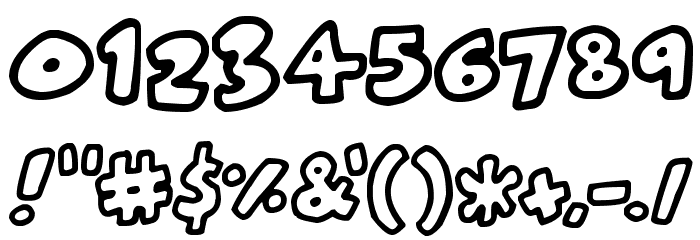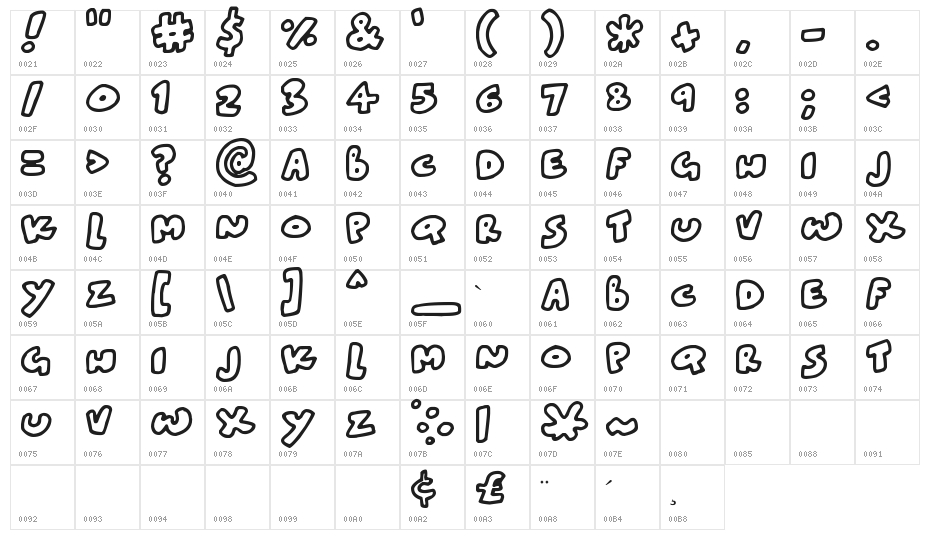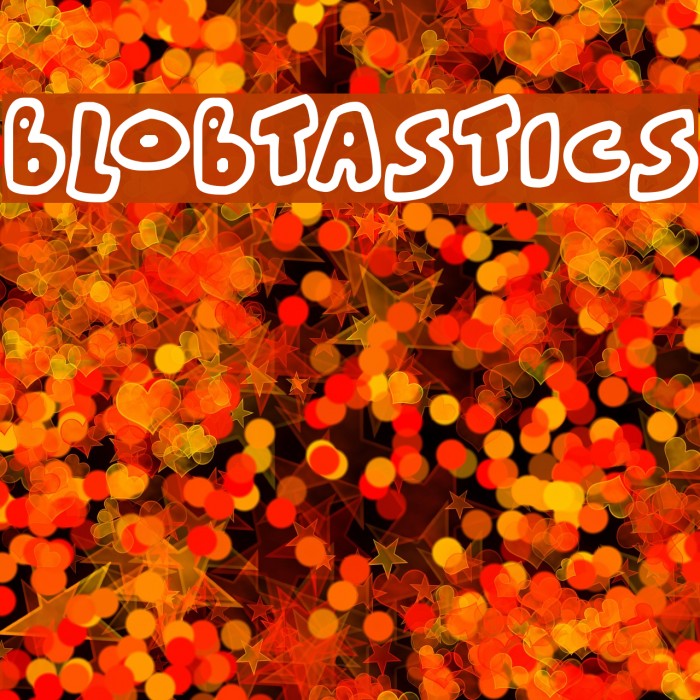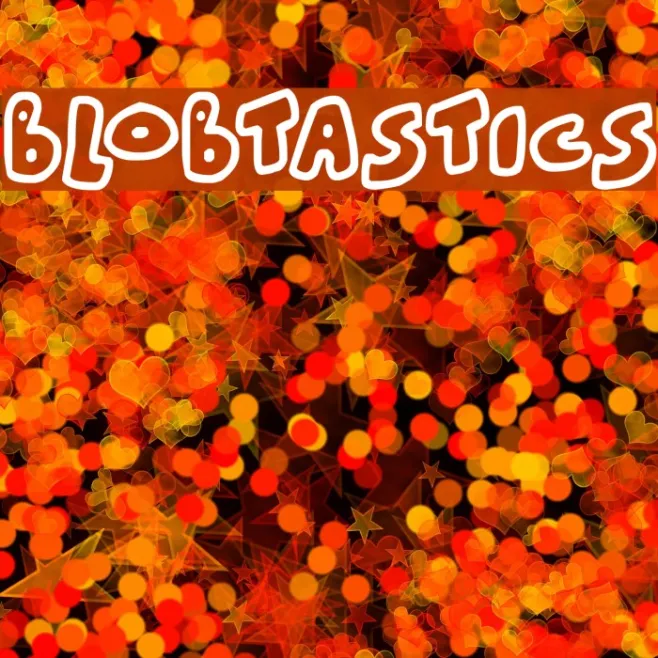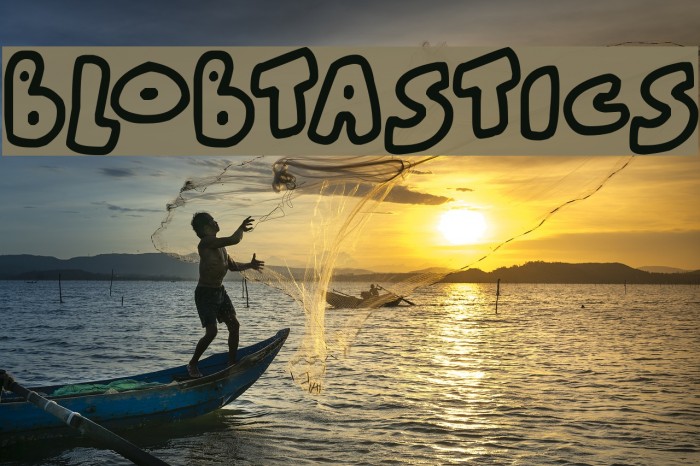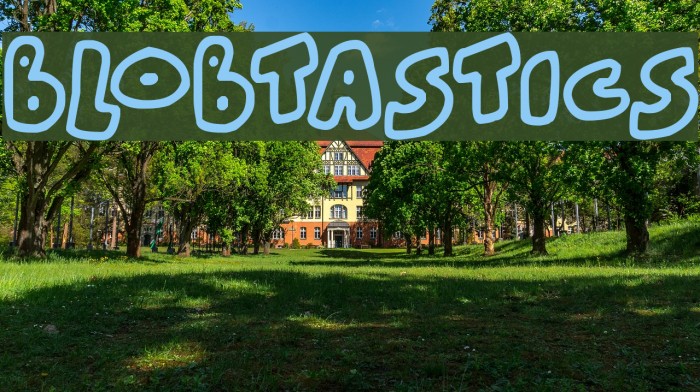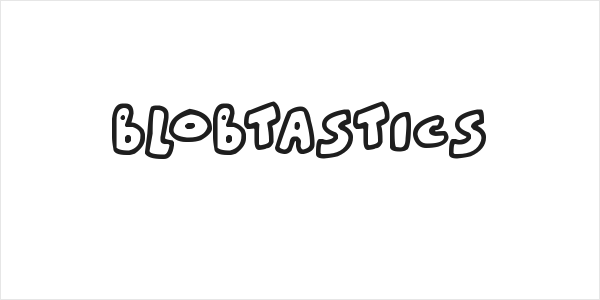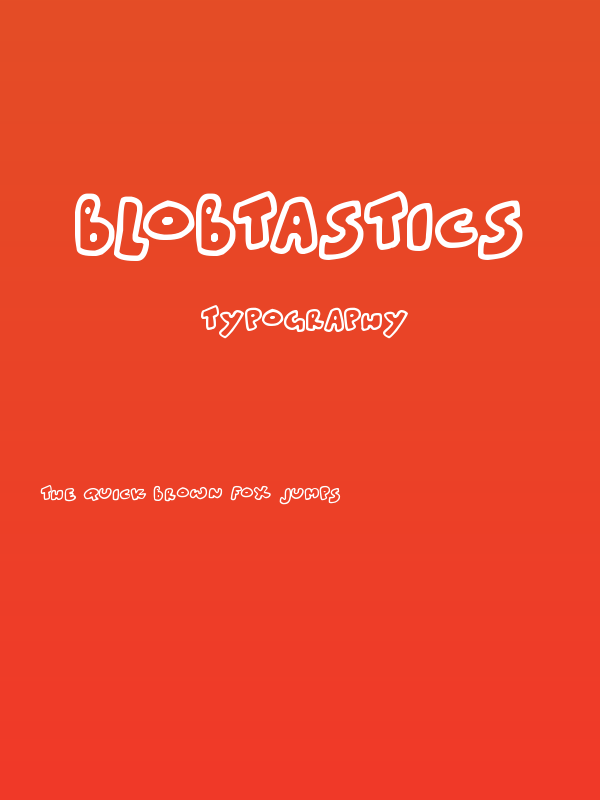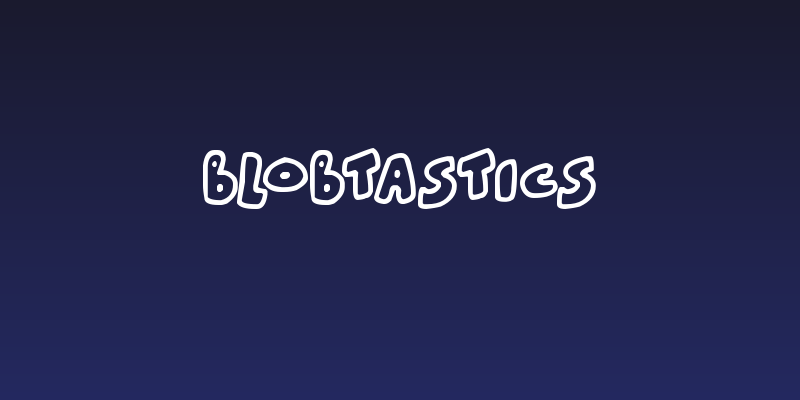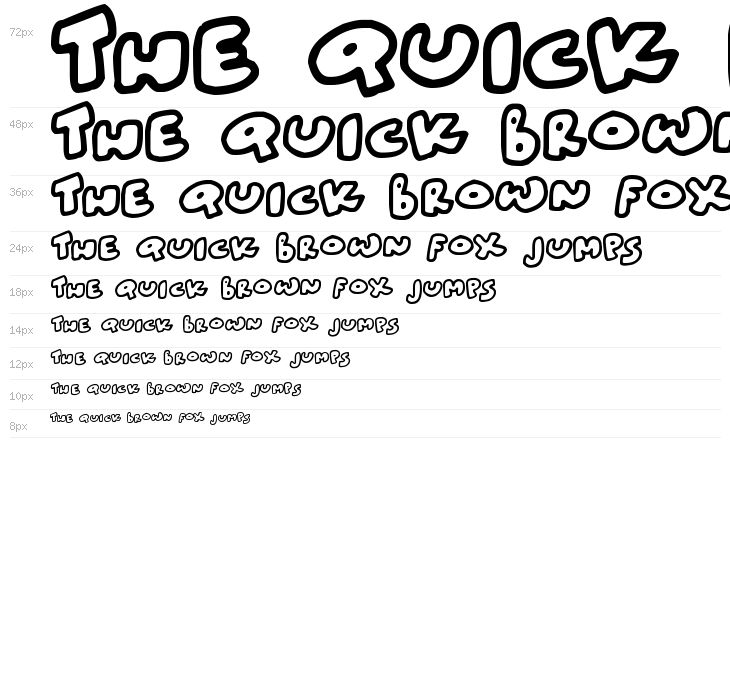
Blobtastics Font
Blobtastics Description
This playful and bold font features a bubbly, cartoon-like appearance with thick, rounded edges. Each character is outlined, giving it a three-dimensional effect that adds depth and fun to the text. The letters are slightly irregular, enhancing the whimsical and informal style. The numbers and special characters maintain the same playful aesthetic, making this font ideal for creative and lighthearted projects. Its unique style captures attention and conveys a sense of joy and creativity.
| Proposed Projects | Ideal for children's books, comic strips, playful branding, party invitations, and creative posters. |